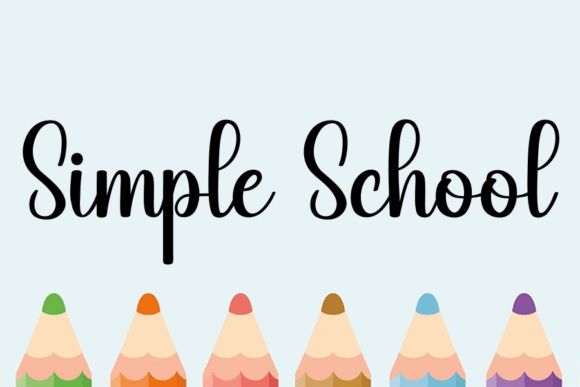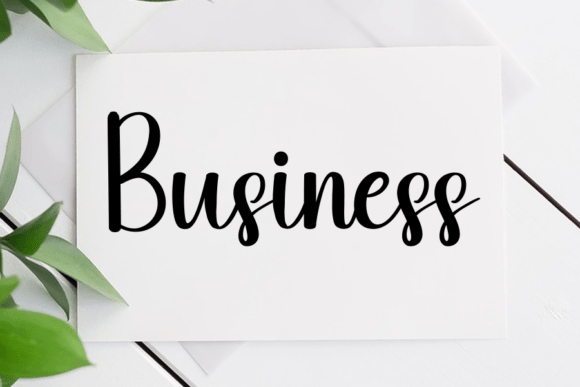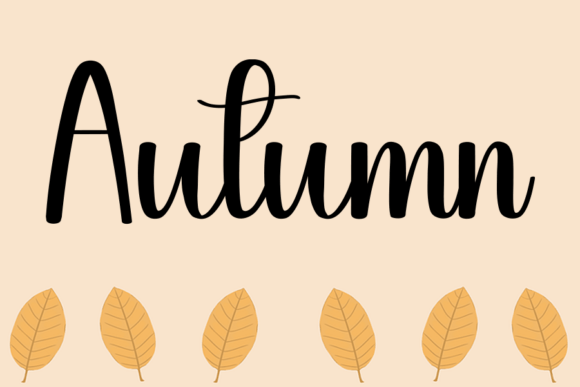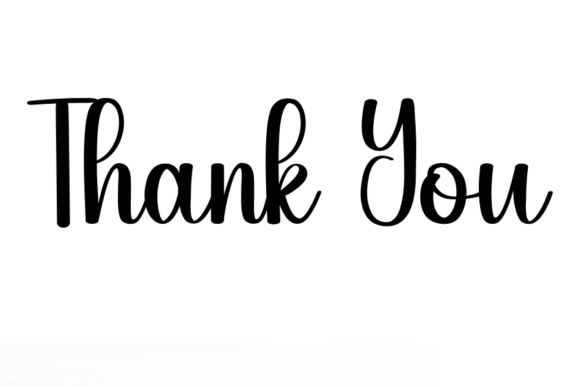
Baking Font: The Sweet and Cursive Handwritten Font for Your Design Needs
Are you looking for a font that can add a touch of elegance and romance to your designs? Look no further than Baking Font, a sweet and cursive handwritten font that is perfect for a variety of design projects. In this article, we’ll explore the features and benefits of Baking Font, and how it can elevate your designs to the next level.
What is Baking Font?
Baking Font is a beautiful, handwritten font that is designed to add a touch of warmth and personality to your designs. With its gentle and cursive strokes, this font is perfect for creating elegant and sophisticated designs that are sure to impress. Whether you’re working on a branding project, a wedding invitation, or a marketing promotion, Baking Font is the perfect choice.
Features of Baking Font
Baking Font has a number of features that make it an ideal choice for designers and crafters. Some of its key features include:
• Sweet and Cursive Handwritten Style: Baking Font has a beautiful, handwritten style that is both sweet and cursive. This makes it perfect for creating designs that are elegant and sophisticated.
• Versatile: Baking Font is a versatile font that can be used on a variety of design projects, from branding and logos to wedding invitations and marketing promotions.
• Elegant and Romantic: This font has an elegant and romantic feel that is sure to add a touch of sophistication to your designs.
• Casual and Friendly: Despite its elegant feel, Baking Font is still a casual and friendly font that is perfect for creating designs that are approachable and inviting.
Benefits of Using Baking Font
There are many benefits to using Baking Font in your designs. Some of the key benefits include:
• Adds a Touch of Elegance: Baking Font adds a touch of elegance and sophistication to your designs, making them perfect for high-end branding and marketing projects.
• Creates a Romantic Feel: This font has a romantic feel that is perfect for wedding invitations, Valentine’s Day designs, and other projects where you want to create a sense of love and romance.
• Versatile: Baking Font is a versatile font that can be used on a variety of design projects, making it a great addition to your font library.
• Easy to Read: Despite its elegant feel, Baking Font is still easy to read, making it perfect for designs where you need to communicate a message.
Design Ideas Using Baking Font
Baking Font is a versatile font that can be used on a variety of design projects. Here are some design ideas to get you started:
• Branding and Logos: Use Baking Font to create elegant and sophisticated branding and logos that are sure to impress.
• Wedding Invitations: This font is perfect for wedding invitations, save-the-dates, and other wedding-related designs.
• Marketing Promotions: Use Baking Font to create eye-catching marketing promotions that are sure to stand out.
• Greeting Cards: This font is perfect for creating elegant and sophisticated greeting cards for special occasions.
• Fashion and Lookbooks: Use Baking Font to create stylish and sophisticated fashion designs and lookbooks.
In conclusion, Baking Font is a beautiful and versatile font that is perfect for designers and crafters who want to add a touch of elegance and romance to their designs. With its sweet and cursive handwritten style, this font is sure to elevate your designs to the next level. Whether you’re working on a branding project, a wedding invitation, or a marketing promotion, Baking Font is the perfect choice.